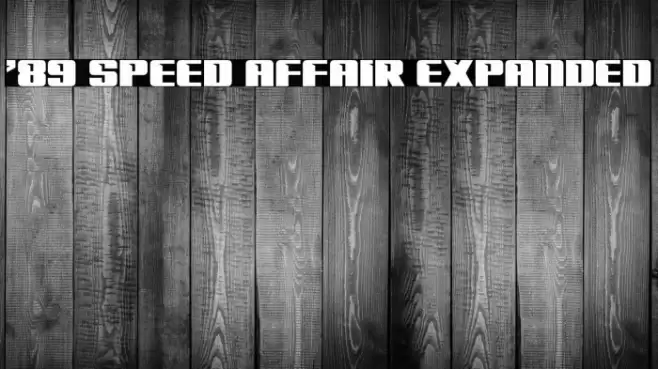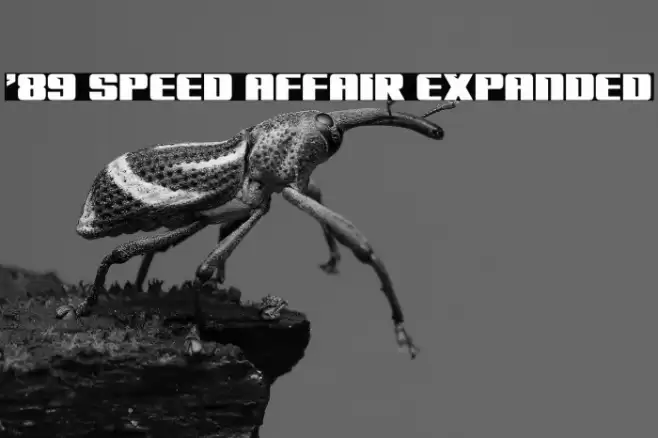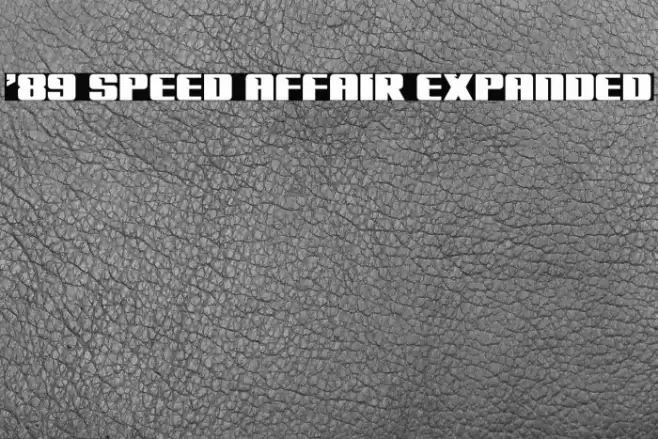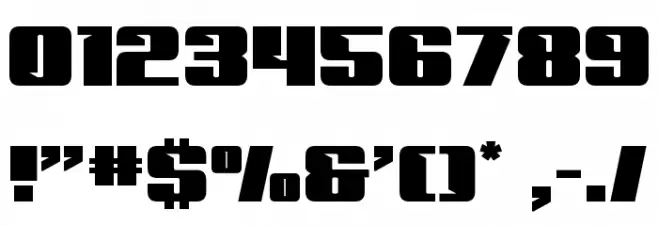
'89 Speed Affair Expanded Font
'89 Speed Affair Expanded Description
This font features a bold and striking design with a distinctly modern and futuristic aesthetic. The characters are wide and expanded, with sharp, angular edges that convey a sense of speed and dynamism. The uppercase letters are particularly prominent, with a blocky, geometric style that makes them stand out. The lowercase letters maintain the same boldness, ensuring consistency across the typeface. Numbers and special characters follow the same design principles, making them highly legible and visually impactful. This font is ideal for projects that require a strong, attention-grabbing typeface.
A bold, expanded font with a modern, futuristic style from Regular fonts.
- Proposed Projects: Ideal for branding, sports team logos, automotive designs, and technology-related projects.
- Width: Expanded